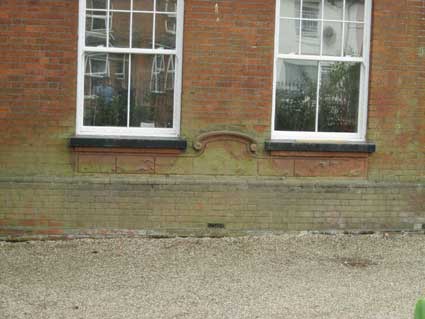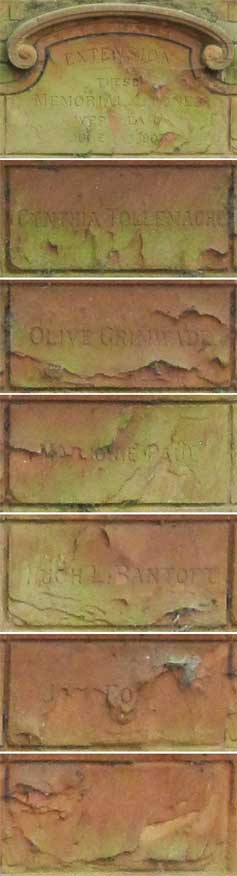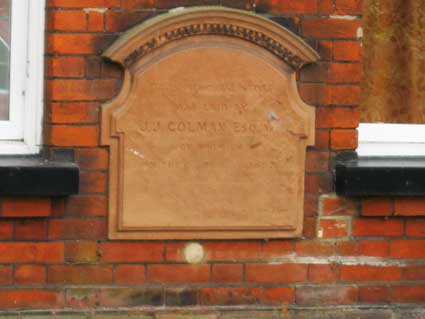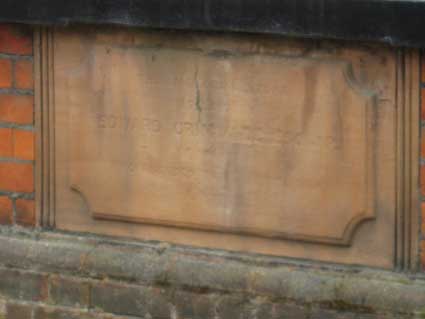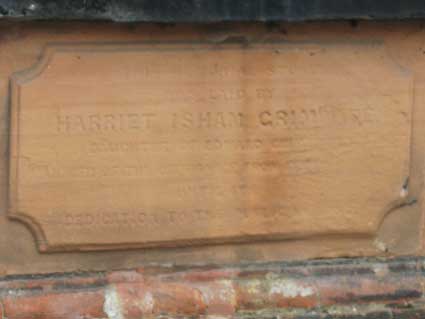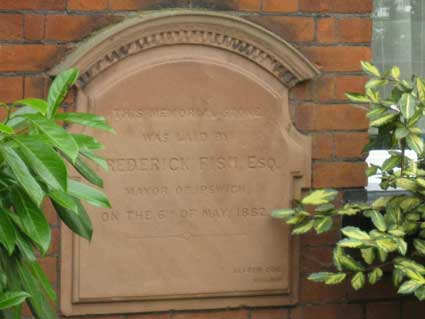
Hope House
Hope House is a former orphanage which stands at 160 Foxhall Road on the corner of Alan Road. Minutes, reports and records are kept for 1876-1942. Known then as the "East Suffolk Girls Home", the orphanage was previously situated on 14 Church Street, Ipswich and was opened on the 1st January 1875. The "Girls Home" was then moved to Hope House on Foxhall Road in January 1883 established under Deed of Trust. Here the girls were trained for domestic service and to do all the work of the house under the Matron's supervision. They received elementary education, learned to make and mend clothing and taught to knit. The orphanage was then closed around 1940 and sold. Hope House often called "The Hostel" was then used to house the Woman's Land Army girls during World War II. Here they were taught how to milk cows and were taken to farms all around Ipswich to work on the land. See the Land Girl photograph album below. Hope House used to have a large garden at the rear for outbuildings and for the residents' activities. That area has gradually filled with newly built housing in recent years. This building has also been used a Council Children's Home in the 1950s and afterwards as The Graham House Hotel before conversion into apartments in the 2000s.The photograph of the rear of the building and gardens shown towards the bottom of this web-page comes from the Ipswich Society Image Archive (see Links).
158-60 Foxhall Road, former Hope House Orphanage, 1882. Architect: William Eade. Two storey red brick, clay tile roof with attics in Queen Anne style.
From the 'Extension' at the left to the shrubs at far right, there is a range of memorials in various states of preservation. First the Extension (see the enlargements):-
'EXTENSION
-
THESE
MEMORIAL STONES
WERE LAID
JUNE ?TH 1907
CYNTHIA TOLLEMACHE
OLIVE GRIMWADE
MARIONTE[?] PAUL
HUGH L. BANTOFT
J- F-
[unreadable]'
A litany of famous Ipswich names: Tollemache (brewers and landowners behind the 'Tolly' part of Tolly Cobbold), Grimwade (see Harriet Grimwade below) and Paul, presumably of the malsters whose name can still be seen down at the Wet Dock. Hugh Lawrence Bantoft was articled to the solicitor's firm of E. P. Ridley of Ipswich. He served as Private, 1st East Anglian Field Ambulance, Royal Army Medical Corps. It seems likely that this is the person commemorated.
The shaped tablet below reads:
'THIS MEMORIAL STONE
WAS LAID BY
J.J. COLMAN ESQ. MP
OF NORWICH
ON THE ? OF MAY 1892.
-
[unreadable small text: probably builder's name]'
Jeremiah James Colman (14 June 1830–1898) was an English mustard manufacturer and the third member of the family in charge of the eponymous company Colman's. He was a popular philanthropist in his home town of Norwich and a Liberal politician who represented the city in parliament. In 1866 Jeremiah James Colman was appointed mustard maker both to Queen Victoria and to Napoleon III of France. He became Mayor of Norwich and championed nonconformity, and persistently urged religious freedom.
The cartouche to the left of the main door:
'THIS MEMORIAL STONE
WAS LAID BY
EDWARD GRIMWADE ESQ. MP
OF ???
WHO FOUNDED ???'
The cartouche to the right of the main door:
'THIS MEMORIAL STONE
WAS LAID BY
HARRIET ISHAM GRIMWADE
DAUGHTER OF EDWARD GRIMWADE
MANAGER OF THE ORPHANAGE FROM ???
UNTIL ???
DEDICATION TO THE ???'
Harriett Isham Grimwade
Harriett Isham Grimwade, part of the Ipswich Grimwade clothier dynasty, never married. Instead she devoted most of her energies trying to help others. She was a founding member of Hope House which opened in 1883. Such ladies of “the educated middle classes” where encouraged to do good works – and around 15% did so. The home was intended to take in orphaned girls or girls from families where the mother had died (probably during childbirth) to bring them up to be trained to become domestic servants. Hope House did such a good job that girls from the Home were in demand locally to work in the homes of the better-off. If girls were deemed to be physically or mentally deficient, they were passed on to St John’s Children’s Home on the Corner of Bloomfield Street and Freehold Road. It was thought that only a girl who was mentally and physically strong could cope with the long hours and tiring regime of work as a domestic servant.
The Hope House Home was financially self-supporting, money being raised locally – some of the girls who had lived there, often from infancy, until aged about 16, voluntarily paid a small amount to the home once they had moved on to employment. Harriett and other sympathetic ladies from around the Town had their own Committee to oversee the financial welfare of the home. Harriet died of cancer in 1883 – she was such a loved lady that she had her own memorial alongside the Grimwade tomb at Ipswich Cemetery. Children from the home sang “Safe in the Arms of Jesus” at the Cemetery Gates as Harriett’s cortege passed by, wearing mourning clothes they had made themselves. The last girls were taken in by Hope House just before World War II.
The fact that a small road in the new development around Pownall Road, off Duke Street, is called Isham Place prompts some additional research. We learn from the Ipswich women in history website (see Links) that Harriet Isham Grimwade (1843-1893) was Ipswich’s first publicly elected woman. She began charitable work in her mid-20s at the Tanners Lane Mission, a centre for poor working-class families (coincidentally the street lost during the Civic Drive development which was also the home of C. Mills foundry documented in relation to drain castings on the Island site). In 1871 she became secretary of the new Ipswich Women’s Suffrage Society. Later she founded the East Suffolk Girls’ Home at 14 Church St (this no longer exists, but was near St Clement’s Church) which expanded in 1883 to accommodate 50 girls at Hope House. Elected onto the School Board in 1880, she served for six years during which time she was responsible for cookery classes. She took an active role in the 1885 Great Liberal Demonstration when Liberal candidates spoke before the General Election. Given the possible association on this web page alone to the Tollemache family, perhaps her middle name links to the Isham baronetcy of Northampton. If anyone knows, please contact us.
Ipswich Historic Lettering: Hope House 6   Ipswich Historic Lettering: Hope House 7
At far right another shaped tablet:
'THIS MEMORIAL STONE
WAS LAID BY
FREDERICK FISH ESQ.,
MAYOR OF IPSWICH,
ON THE 6TH OF MAY, 1882.'
-
ALFRED COE
BUILDER'
Frederick Fish & Son were linen & woollen drapers with premises at number 46 & 48 Tavern St, on the corner of St Lawrence Street.  See our Tavern Street page for more information and images.
Above: the modern gates installed since conversion into flats with the cut-out lettering: ' HOPE HOUSE'.
Above: the extension and bridge building over the 'HOPE MEWS' gates from Alan Road. It took many years for the housing to be built in the rear garden of Hope House. First came a row of housing fronting Cavendish Street, also accessed from this stretch of Alan Road and, much more recently, Hope Mews.